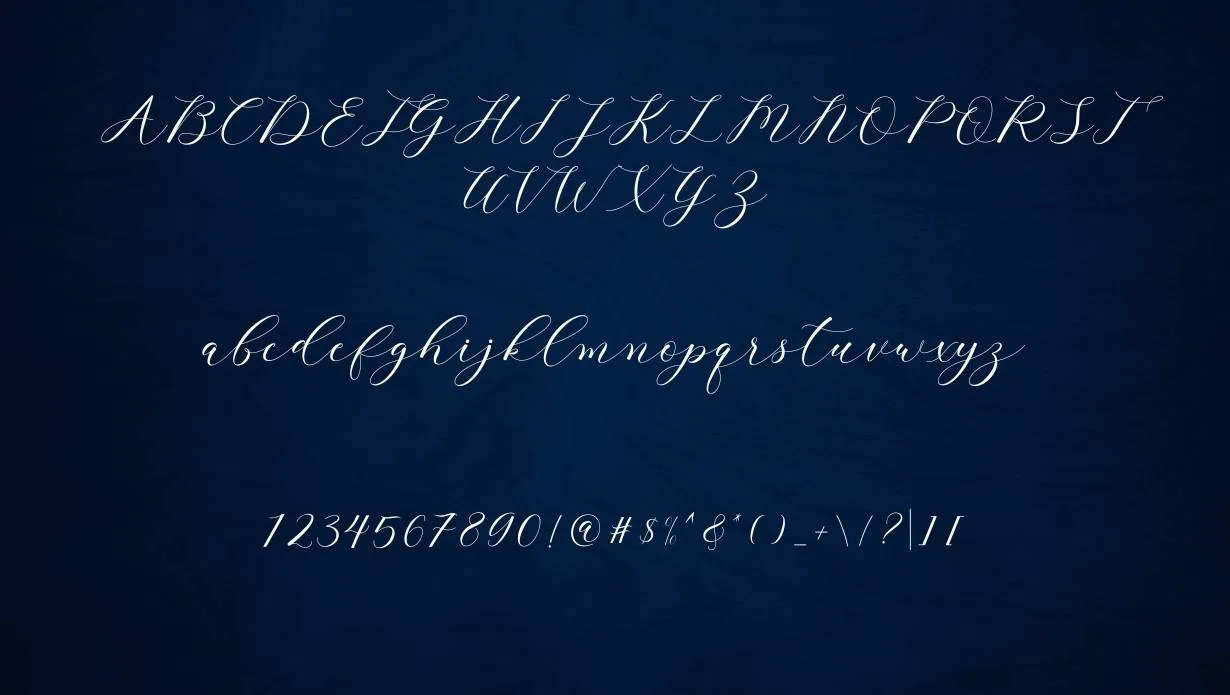
Clover Font is a versatile and modern typeface suitable for various design applications. It’s clean lines and a contemporary design.
It is a practical choice for branding, advertising, web design, and packaging, providing a fresh and organized aesthetic to your projects.
Clover Font Family
| Name | Clover Font |
| Designer | Kaitlynn Albani |